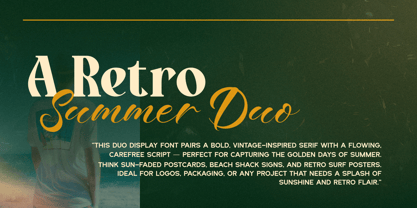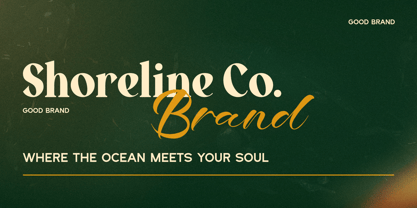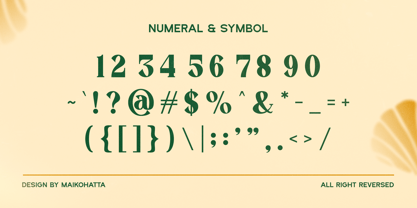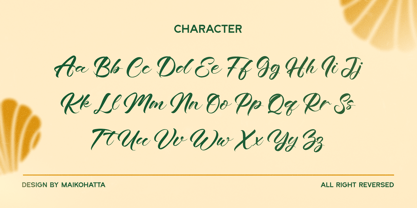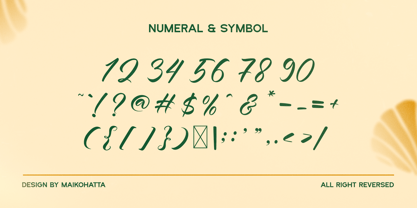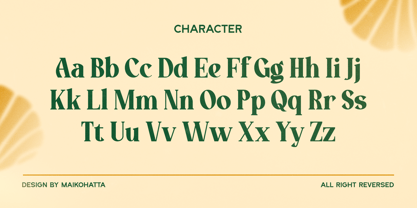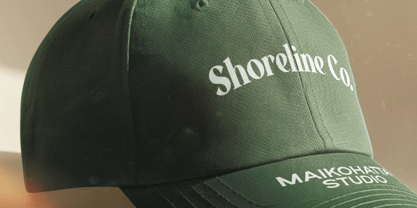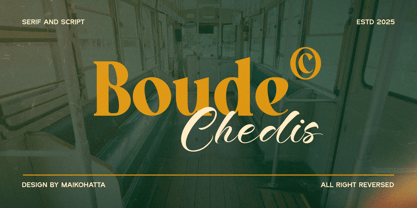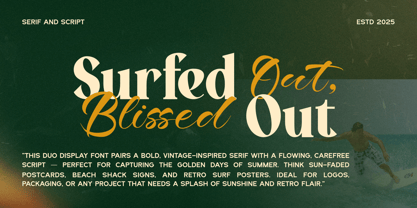
Chedis Script
The Chedis Script Font Family was designed by Gilang Ternadho and published by Maikohatta. Chedis Script contains 2 styles and family package options. More about this family
Introducing New Typeface Boude Chedis is a versatile and unique typeface that comes in two distinct styles: serif and Script. Each style brings its own flavor and character, catering to various design needs and preferences.
Boude Serif
A contemporary serif with high contrast, sharp details, and classic charm. Ideal for headlines, logos, and refined branding.
Chedis Script
A smooth, flowing script with natural ligatures and an authentic handwritten feel. Perfect for names, taglines, and elegant accents.
In summary, Boude Chedis offers a perfect balance between Classic and handcrafted charm through its two styles, Serif and Script. The Serif style brings a contemporary, bold clean, while the Script style offers a beautiful, handwritten appeal.